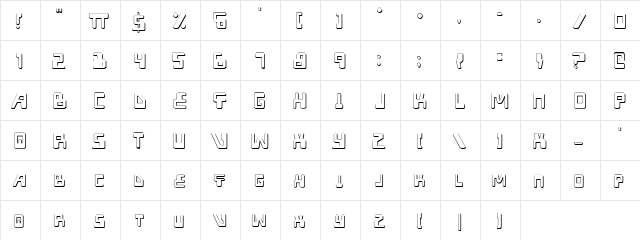
XPED Shadow Regular Font Preview
XPED Shadow Regular
Design Context for XPED Shadow Typeface
XPED Shadow is built around its visual character rather than neutral utility — its distinctive forms are designed to make an impression at display sizes.
Font Pairing: Pair with a clean neutral sans-serif for body copy to let XPED Shadow's character lead without overwhelming the composition.
Pro Tip: Use XPED Shadow exclusively at display sizes — it was designed to be seen, not read at length. Let a neutral companion handle body copy.